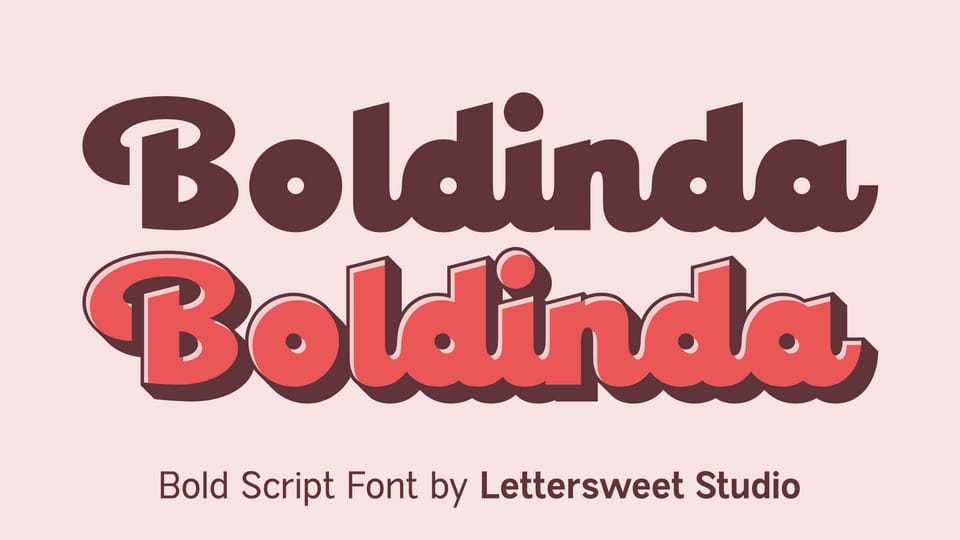
Download Boldinda font, a thick, eye-catching script typeface designed to bring warmth, confidence, and personality into your designs. With its smooth curves, bold strokes, and friendly flow, Boldinda blends retro charm with a modern playful twist.